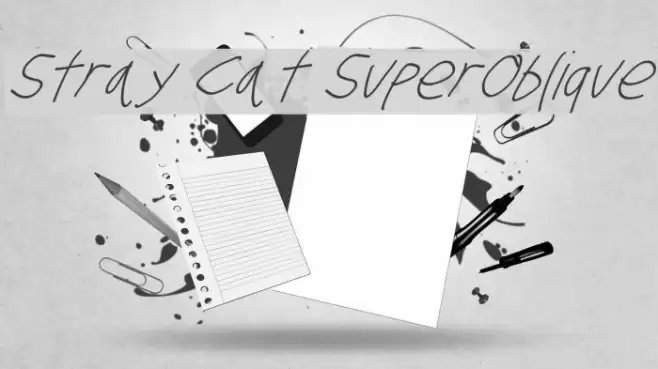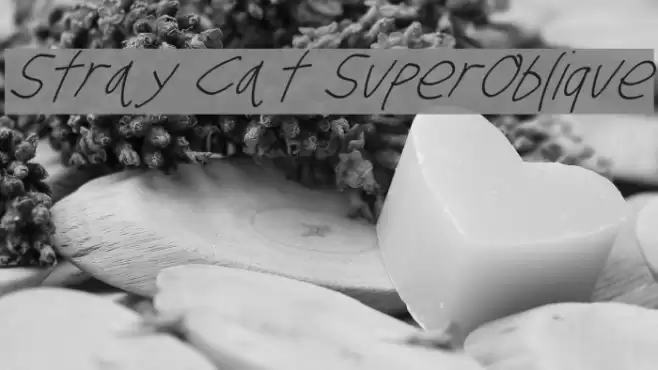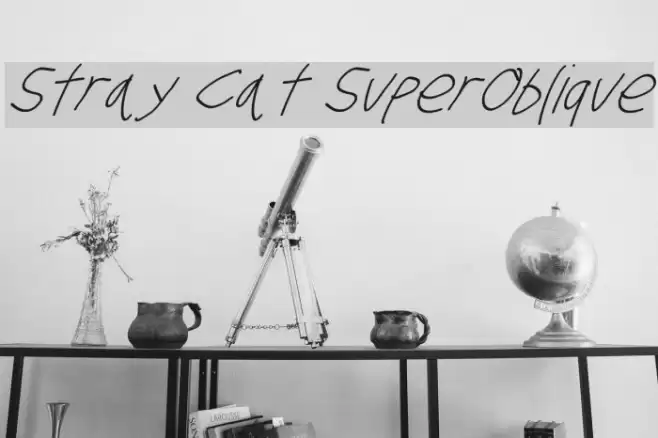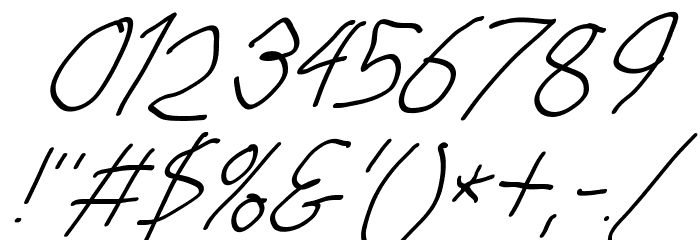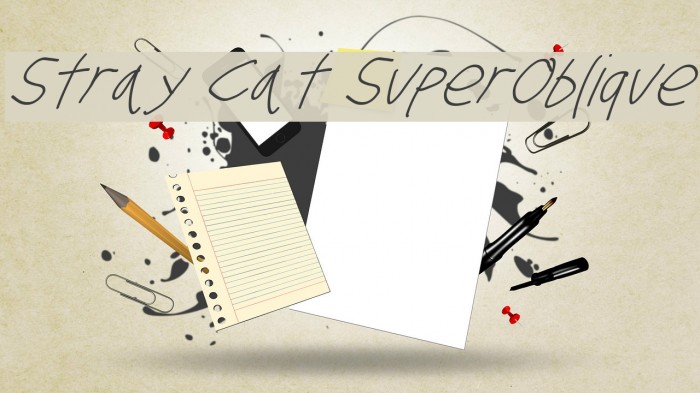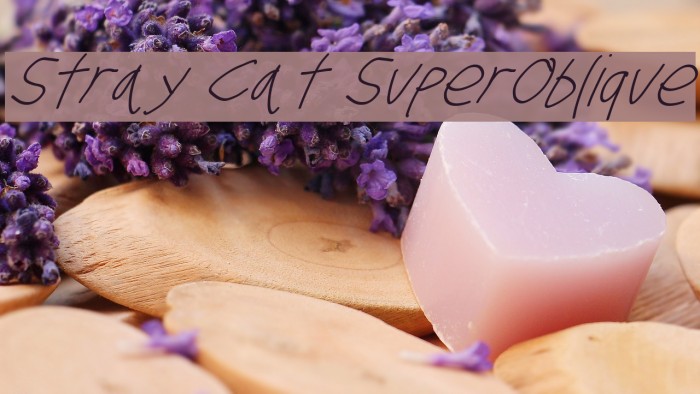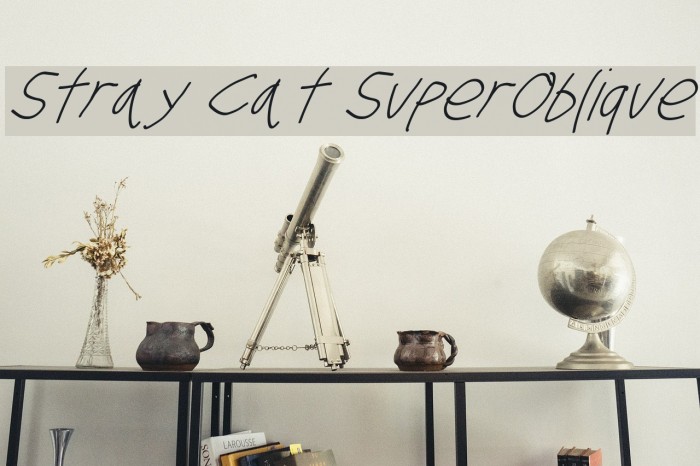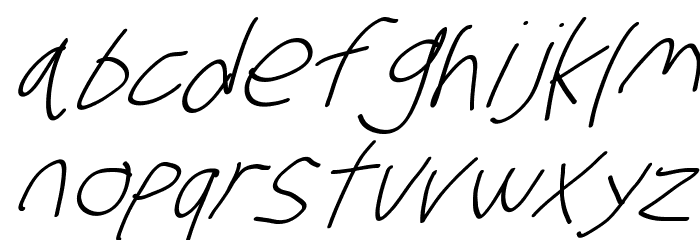
Stray Cat SuperOblique
This font exudes a casual and playful handwritten style, characterized by its slanted, oblique orientation. The strokes are fluid and dynamic, giving a sense of motion and energy. Each letter is uniquely crafted with a personal touch, resembling a quick, yet deliberate penmanship. The uppercase and lowercase letters maintain a consistent style, with smooth curves and slightly irregular lines that add to its charm. Numbers and special characters follow the same aesthetic, ensuring a cohesive look across all elements. The overall appearance is informal and approachable, making it suitable for projects that aim to convey a sense of friendliness and creativity.
A playful, handwritten oblique font with fluid strokes and a casual style.
- Proposed Projects: Ideal for personal invitations, creative branding, casual posters, and social media graphics.
- Overall Style: Casual, Playful
- Use Case: Logos, Invitations, Posters